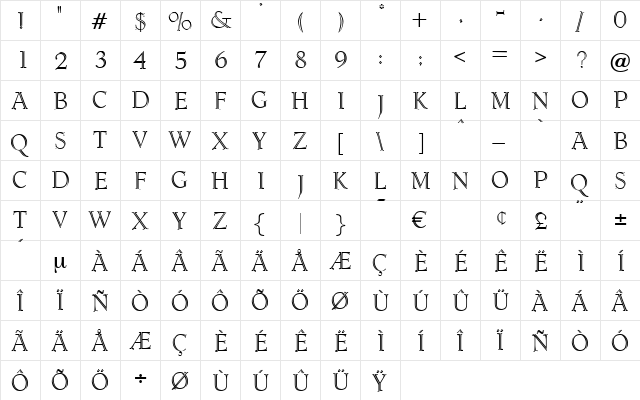
TheodorInitials Regular
Design Context for TheodorInitials Typeface
TheodorInitials is a composed and adaptable typeface that performs quietly and consistently across a wide range of design contexts.